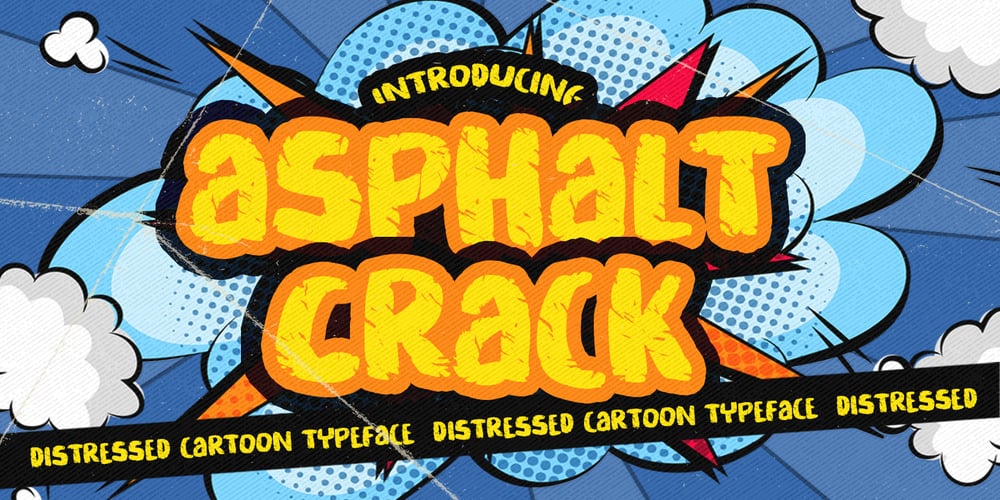
Asphalt Crack Font Family was designed by Abdul Malik Wisnu, Anang Fibriyanto and published by Gassstype. Asphalt Crack contains 1 styles and family package options. Hello Everyone, Introduce our new collection Asphalt Crack is Distressed Cartoon Typeface is Cute Cartoon Font,Bold Display , Inspired from Modern logos of brands that have very strong characteristics, very suitable for posters,card to kids cute,and guaranteed to add a sweet touch to your next design,packaging, branding, logotype and more. Asphalt Crack is font with strong and challenging nuances. very suitable for the title, typography, Poster, magazines, brochures, packaging,Websites and much more for your design needs, making your designs more modern and professional.